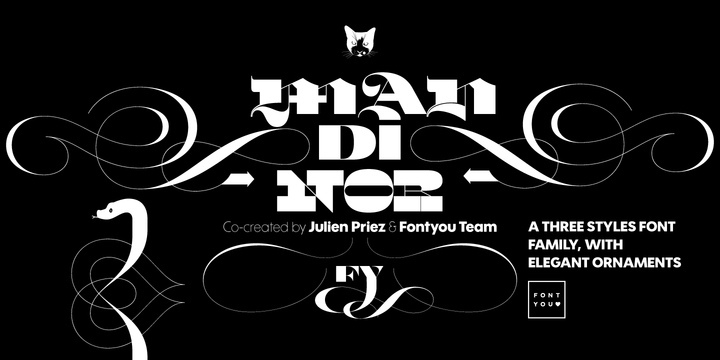
Mandinor FY Font
Mandinor FY Font excels in exotic travel branding, world music album covers, cultural festival posters, international cuisine restaurants, artisanal craft packaging, ethnic jewelry designs, multicultural event promotions, authentic fabric labels, traditional art exhibitions, heritage tourism campaigns, global lifestyle magazines, and cross-cultural marketing projects where distinctive character and worldly sophistication create compelling cultural connections.
This captivating typeface generates excitement through its unique fusion of international design influences and contemporary typographic innovation that creates truly distinctive visual experiences. Mandinor FY Font stands out with its carefully balanced blend of exotic character elements and modern functionality, featuring distinctive letterforms that hint at diverse cultural traditions while maintaining excellent readability across various applications. The font's sophisticated design approach incorporates subtle cultural references without appropriation, creating typography that feels both familiar and refreshingly unique. Its versatile nature allows designers to communicate global awareness and cultural appreciation through thoughtful typographic choices.
The Mandinor FY Font family includes comprehensive variations such as Regular, Light, Medium, Bold, and Extra Bold weights, each maintaining the font's characteristic international flair while offering different levels of visual impact. The collection features extended character sets supporting multiple languages and scripts, alternative letterforms that enhance cultural authenticity, and special diacritical marks for accurate international typography. OpenType features include contextual alternates and stylistic sets that provide additional customization options for culturally sensitive design applications.
Global-minded designers consistently choose Mandinor FY Font Free Download for projects requiring typography that bridges cultural boundaries while respecting diverse traditions. This remarkable typeface performs exceptionally well in multicultural contexts, maintaining its distinctive personality while adapting to various cultural and linguistic requirements. The font's international appeal makes it particularly effective for brands targeting global audiences who value cultural diversity and authentic cross-cultural communication.
Whether you're developing international brand identities, creating multicultural marketing campaigns, designing cultural exchange programs, or building global e-commerce platforms, Mandinor FY Font delivers unmatched cultural sophistication. Its ability to convey worldliness, authenticity, and cultural awareness makes it invaluable for organizations operating in increasingly diverse and interconnected markets. The font's distinctive character ensures your designs will communicate global perspective while maintaining the cultural sensitivity essential for successful international communications.